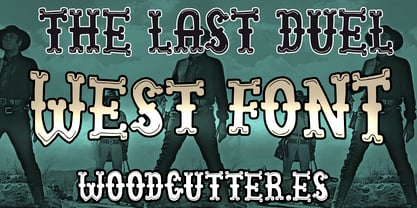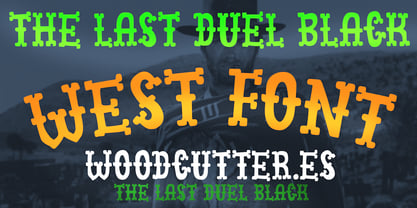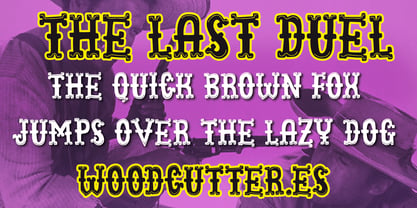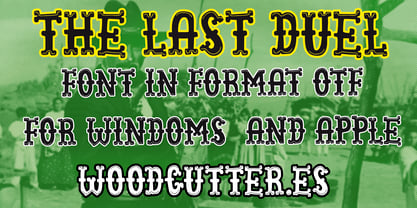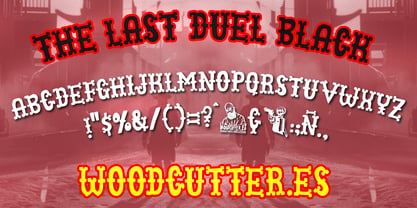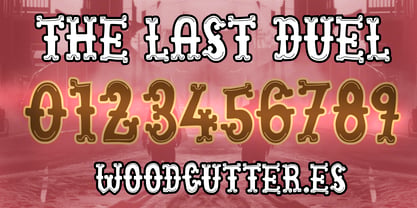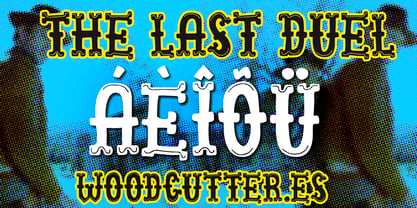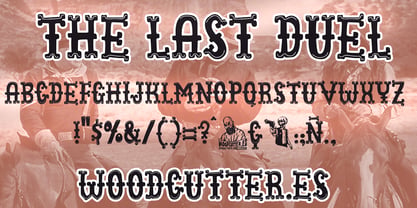
The Last Duel
by Woodcutter
The The Last Duel Font Family was designed by Jordi Manero and published by Woodcutter. The Last Duel contains 2 styles and family package options. More about this family
The Last Duel is an all-caps fancy western-style typeface with accents, capturing the spirit of the Old West through a detailed, elegant, and cinematic aesthetic. Inspired by vintage duel posters, rodeo signs, and classic Western films, this font is crafted to stand out in titles, logos, and graphic compositions full of grit, nostalgia, and theatrical flair.
The type family consists of two versatile styles:
The Last Duel, the decorative version, includes stylized flourishes and refined details in each character, adding a sophisticated, vintage charm. It's ideal for designs that require a touch of ornamentation without sacrificing the boldness of the Western genre.
The Last Duel Black strips away the embellishments, offering solid black versions of each letter. It retains the strong letterforms while embracing a more straightforward, impactful, and clean approach.
Both versions feature strong structures, prominent serifs, and sharp terminals, creating a balance between tradition and modern appeal. Perfect for cowboy-themed projects, whiskey branding, folk concert posters, or cinematic titles with a classic and dramatic edge.